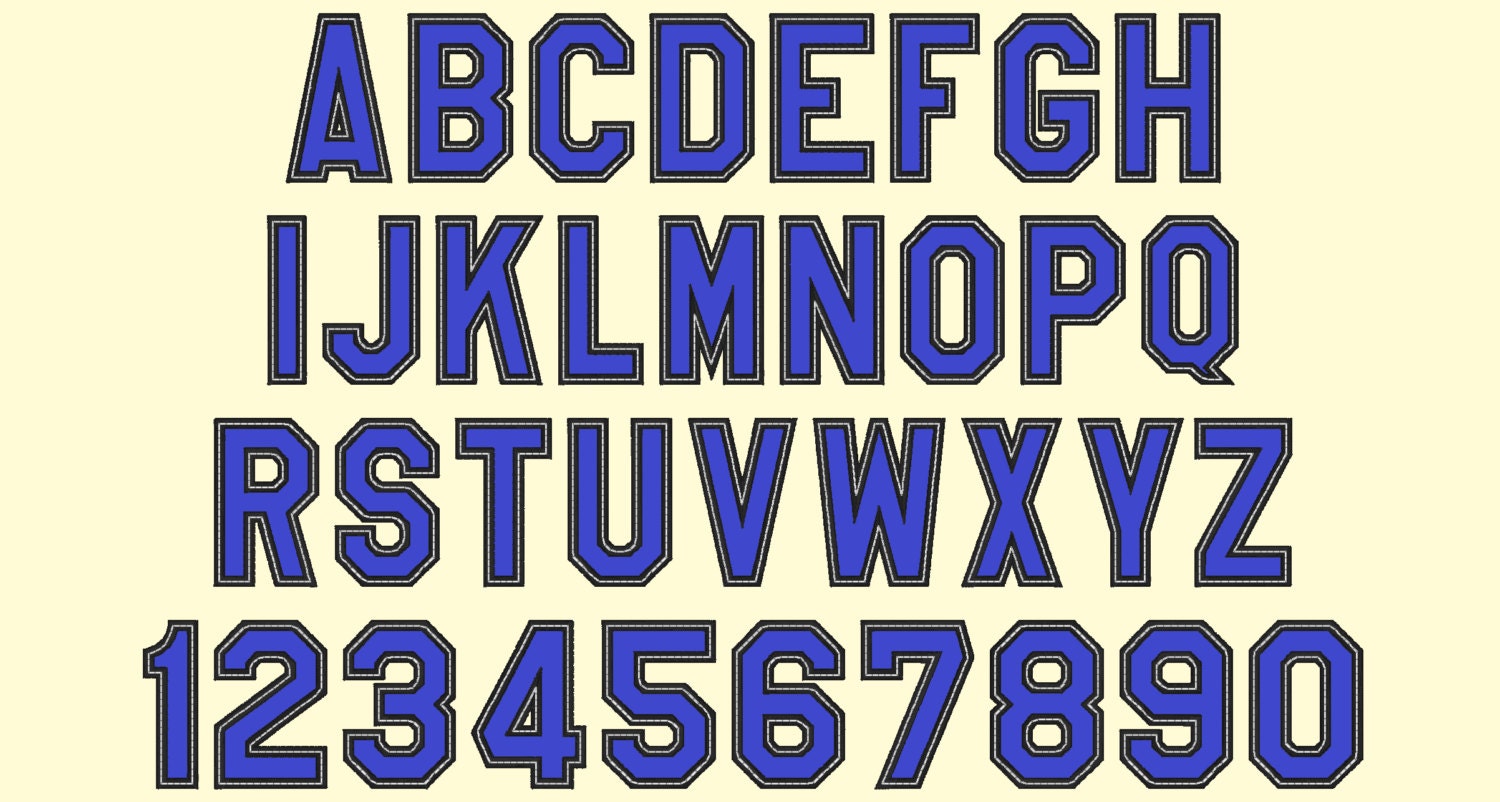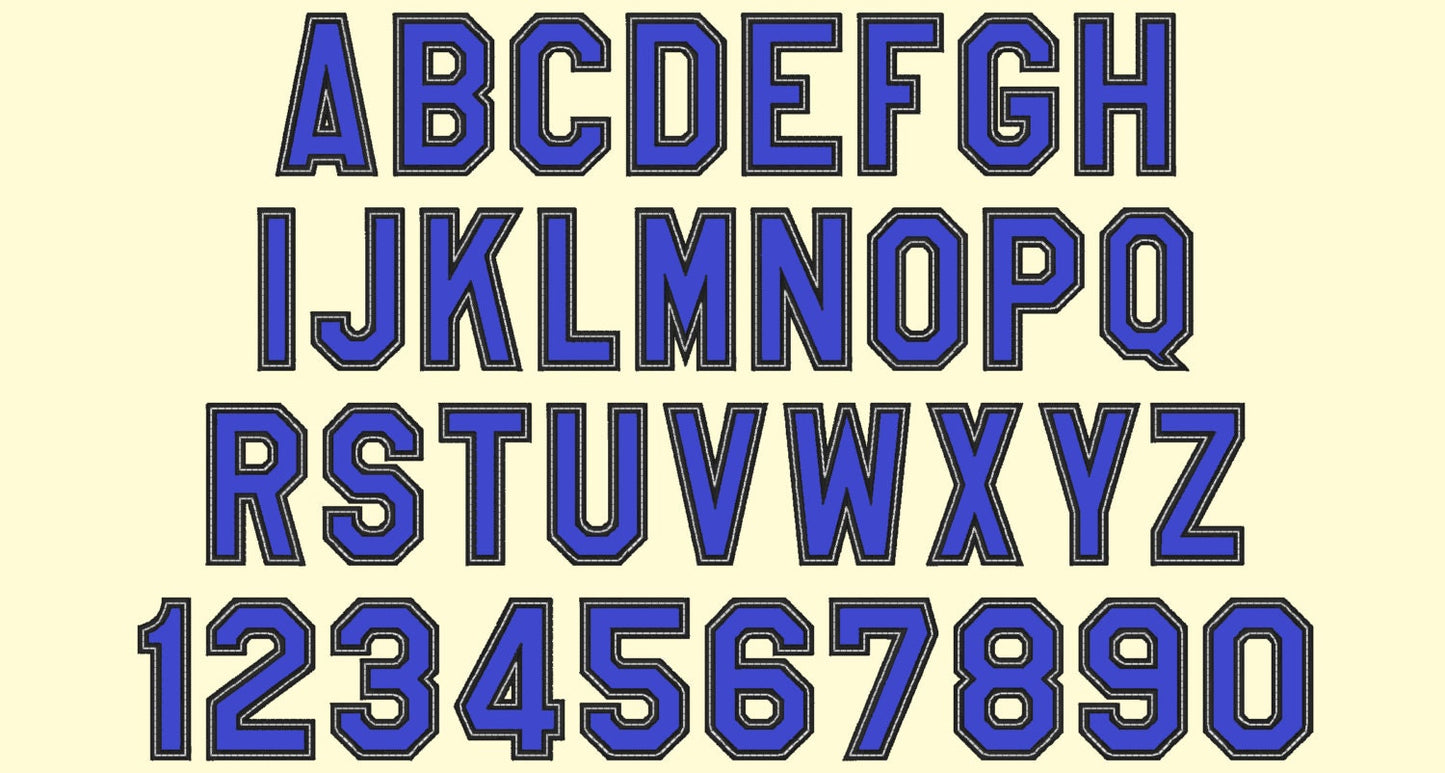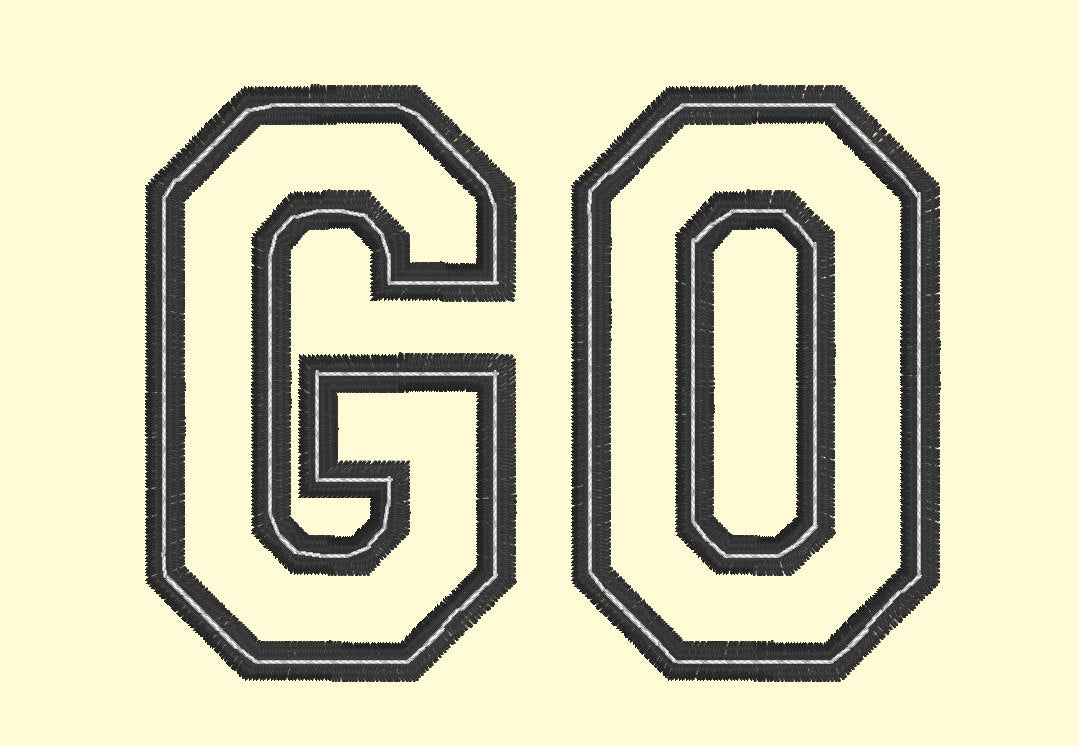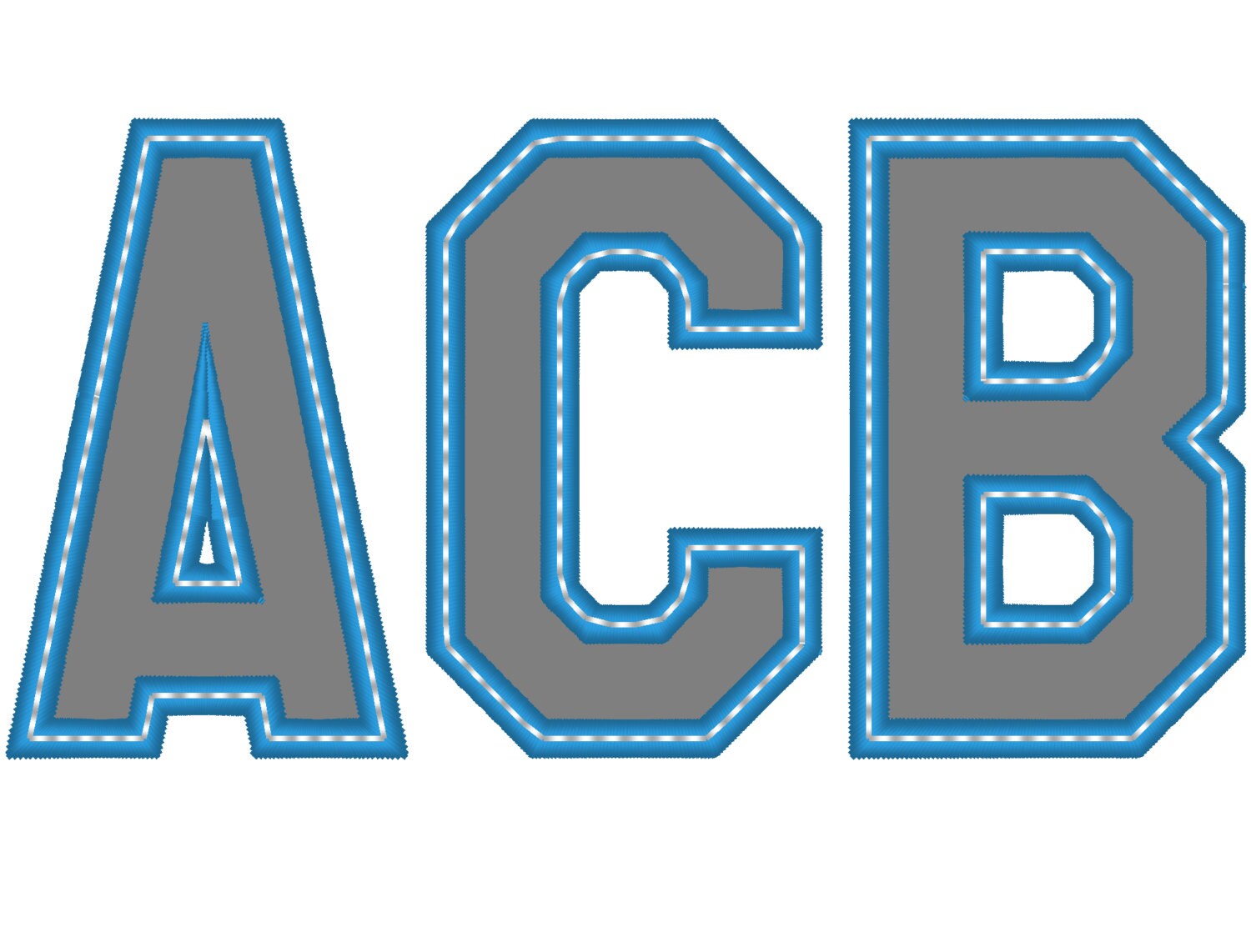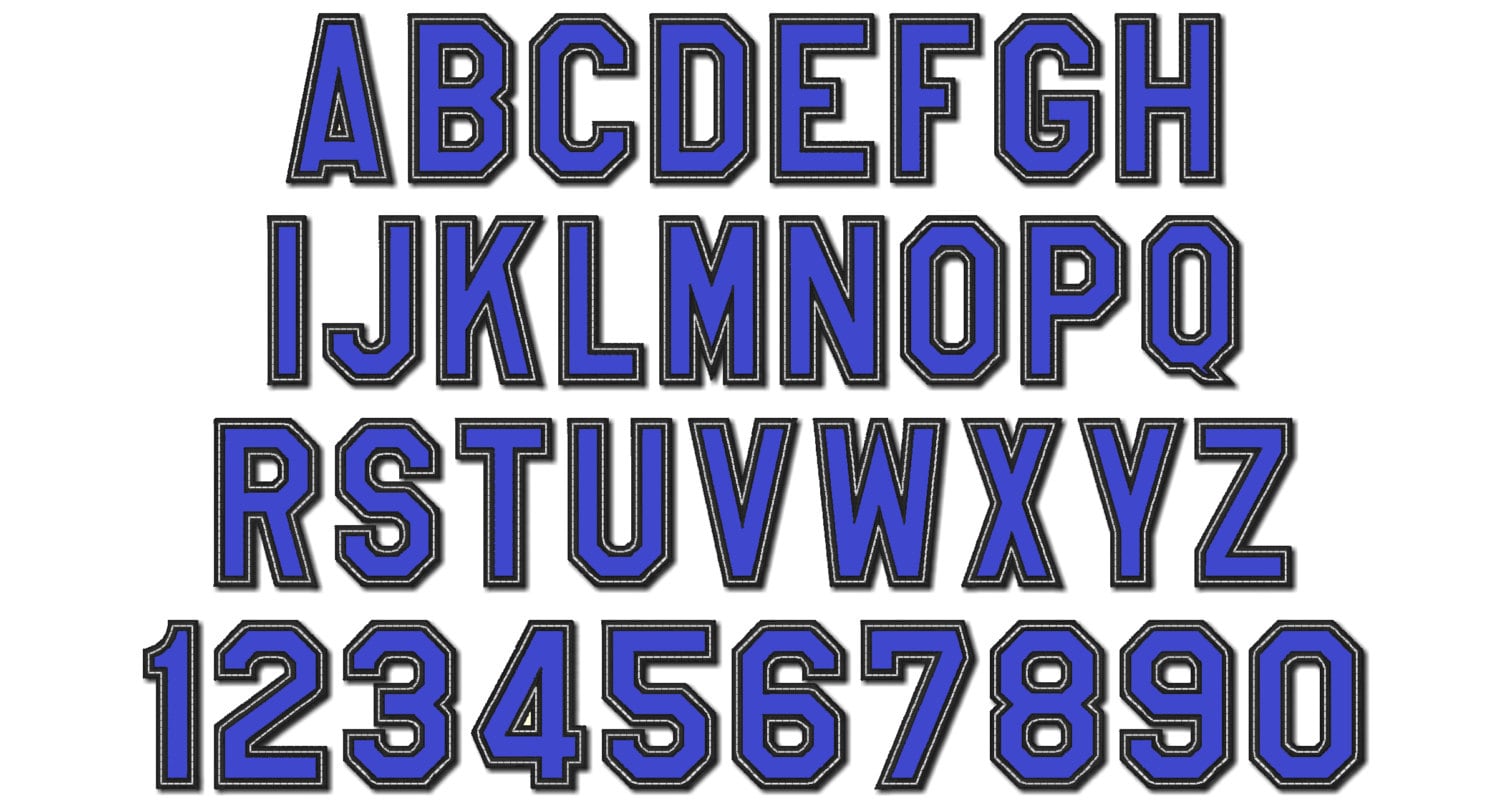
Or click to open the linkA thin block team applique font for jerseys, hoodies and bags, with a wide satin edge and a neat top stitch.
Uppercase A to Z and numbers 0 to 9 in six sizes: 2, 3, 3.5, 4, 5 and 6 inches.